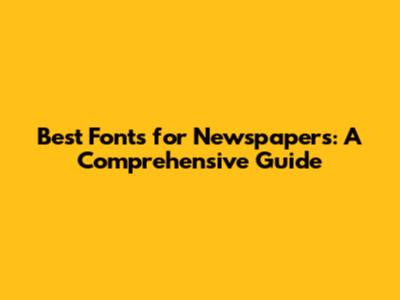
Hey there, newspaper enthusiasts and content creators! Ever stared at a blank page and wondered, "What font should I use for a newspaper?" It's a legit question, guys, and it's way more important than you might think. Choosing the right font isn't just about making your newspaper look pretty; it's about readability, conveying the right tone, and ensuring your readers can actually, you know, read the amazing stories you've poured your heart into. Think about it: a super fancy, scripty font might look cool for a wedding invitation, but it’s going to be a nightmare to read in a multi-page broadsheet, right? We're talking about making sure Grandpa Joe can easily read the latest town gossip without squinting, and that your breaking news story doesn't get lost in a sea of confusing characters. Today, we're diving deep into the nitty-gritty of newspaper typography. We'll break down the characteristics that make a font newspaper-friendly, explore some classic and modern choices, and give you the lowdown on why serifs often reign supreme in the world of print journalism. Get ready to level up your newspaper game, because by the end of this, you'll be a font-picking pro!
The Crucial Role of Typography in Newspapers
Alright, let's get real for a sec. Typography in newspapers is more than just picking letters; it's the silent conductor of your entire publication. It dictates the mood, guides the reader's eye, and ultimately impacts how your message is received. When you're crafting a newspaper, especially if you're aiming for that classic, authoritative feel, the font choice is paramount. Imagine picking up a newspaper and the headlines are in a bubbly, playful font, while the body text looks like it was written by a robot. Confusing, right? That disconnect can totally undermine the credibility and professionalism of your work. Newspaper fonts need to be robust, clear, and easy on the eyes, even when presented in dense columns or at a distance. They need to handle a variety of content, from serious investigative pieces to lighter features and even advertisements, without looking out of place. Think about the sheer volume of text a reader typically consumes in a newspaper. They're often scanning, not deeply reading every single word. This is where the magic of good typography comes in. A well-chosen font family, with different weights and styles, allows for a clear hierarchy of information. Bold headlines grab attention, lighter subheadings guide the reader through sections, and the body text, usually in a regular or book weight, needs to be comfortable for extended reading. We're talking about avoiding fonts that are too thin, too condensed, or have overly decorative elements that can become distracting or illegible at small sizes. The goal is to create a visual flow that makes navigating the newspaper intuitive and enjoyable. It's about building trust and authority through consistent, readable design. So, while it might seem like a minor detail, the font you choose is a foundational element of your newspaper’s identity and its ability to communicate effectively. It’s the backbone of your visual storytelling, guys, and getting it right makes all the difference.
Why Serifs Often Win the Newspaper Font Race
So, you might have noticed a trend: many newspapers, especially the established, traditional ones, heavily favor serif fonts. What's the big deal with these little feet on the letters? Well, it turns out, those little decorative strokes, called serifs, actually play a super important role in how we read text, particularly in print. For starters, serif fonts for newspapers are believed to improve readability by creating a visual baseline for each letter. These serifs help guide the eye along the line of text, making it easier to track words and sentences, especially when you're dealing with long passages and multiple columns. It’s like giving your eyes little signposts to follow. Studies and anecdotal evidence have suggested that readers can process text faster and with less fatigue when using serif fonts for body copy in print. Think about the Times New Roman or Garamond – they’ve been around forever for a reason! They’re designed for comfortable, extended reading. Beyond just readability, serifs often lend a sense of tradition, authority, and trustworthiness to a publication. When you see a newspaper using a classic serif font, it subconsciously signals that this is a serious, established source of information. It evokes a certain gravitas that can be harder to achieve with sans-serif fonts, which tend to feel more modern and minimalist. However, that doesn’t mean sans-serifs are entirely out of the picture for newspapers. Many contemporary publications use sans-serifs for headlines or even for the entire newspaper to achieve a cleaner, more modern aesthetic. The key is understanding the purpose of the serifs and how they contribute to the overall reading experience. They create a visual connection between letters, smoothing out the flow and reducing the visual